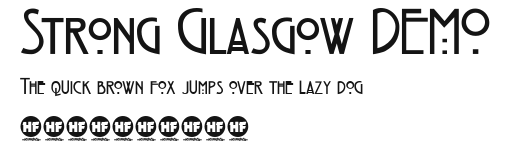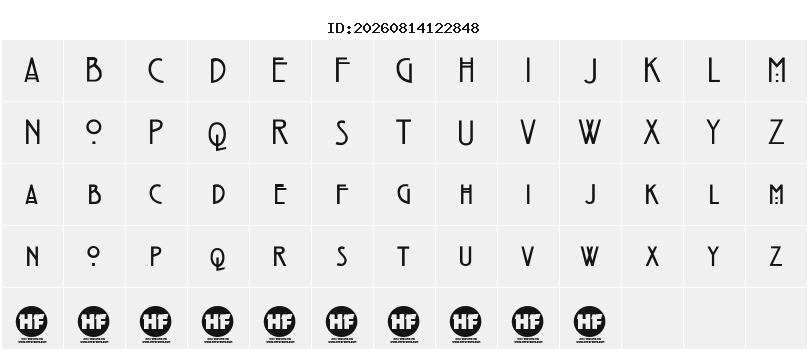
Strong Glasgow DEMO Preview
• Font Name: Strong Glasgow DEMO
• Font Style: light
• Font ID: GuilhemGRECO/hypefonts: Strong Glasgow Regular: 2016
• Full Font Name: Strong Glasgow DEMO light
• PostScript Name: StrongGlasgowDEMO-light
• Designer: Guilhem GRECO/ Hypefontsô
• Manufacturer: Guilhem GRECO/ hypefonts
About Strong Glasgow DEMO.ttf
Strong Glasgow DEMO.ttf is a modern, elegant sans-serif font designed for ultimate readability and visual harmony. Perfect for branding, headlines, web design, and print materials.